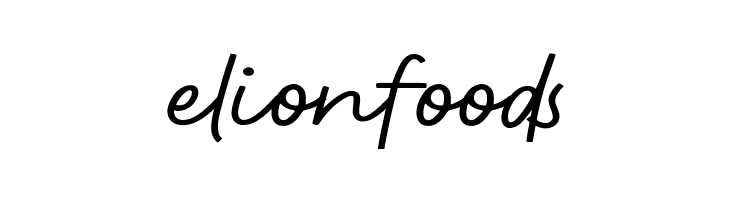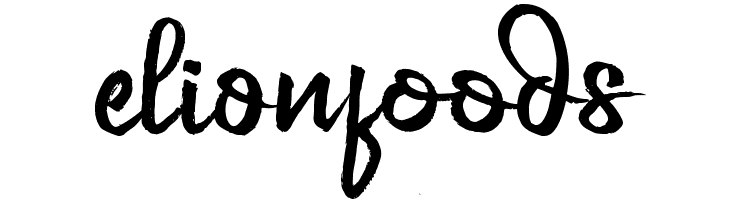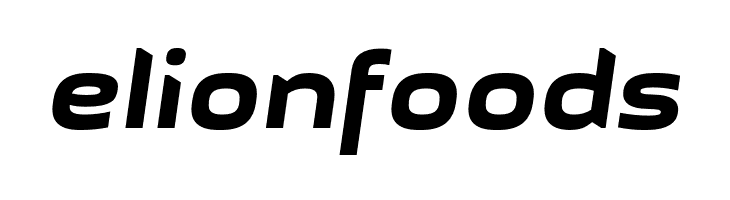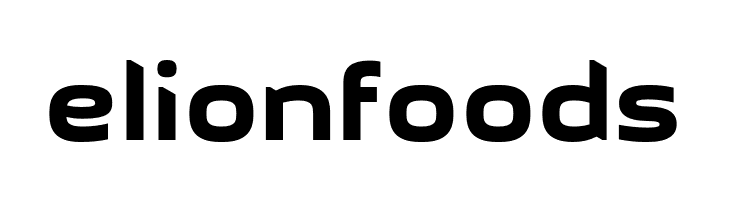
A bold, distressed font with a gritty, textured appearance reminiscent of graffiti.
Bold handwritten font with a playful style.
A dynamic handwritten font with fluid strokes and a modern feel.
A dynamic, handwritten font with expressive curves and fluid strokes.
A bold, geometric font with thick strokes and a modern, impactful style.
A bold, expressive handwritten font with fluid strokes and a brush-like texture.
A bold, rounded font with a playful and modern style.